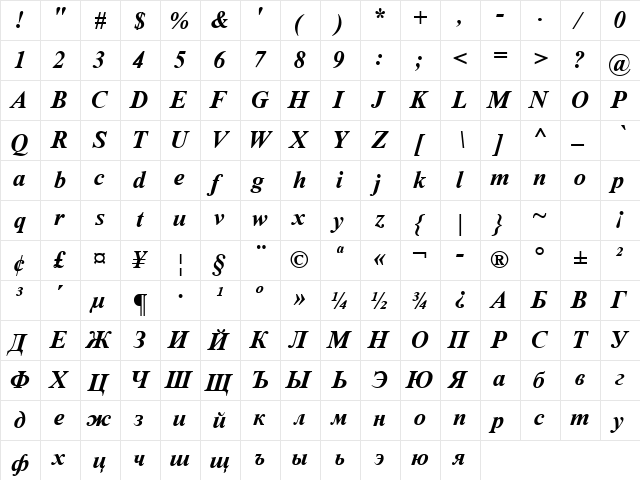
Time Roman Bold Italic
Design Context for Time Roman Typeface
Time Roman offers clean, dependable letterforms without strong stylistic allegiance, making it a practical choice for designers who need flexibility. The dynamic lean of this cut emphasises speed and emphasis in any layout. Its bold stroke weight gives it real presence on the page.
Pro Tip: Use Time Roman for emphasis, pull quotes, and subheadings where its slanted energy can add rhythm to the layout.